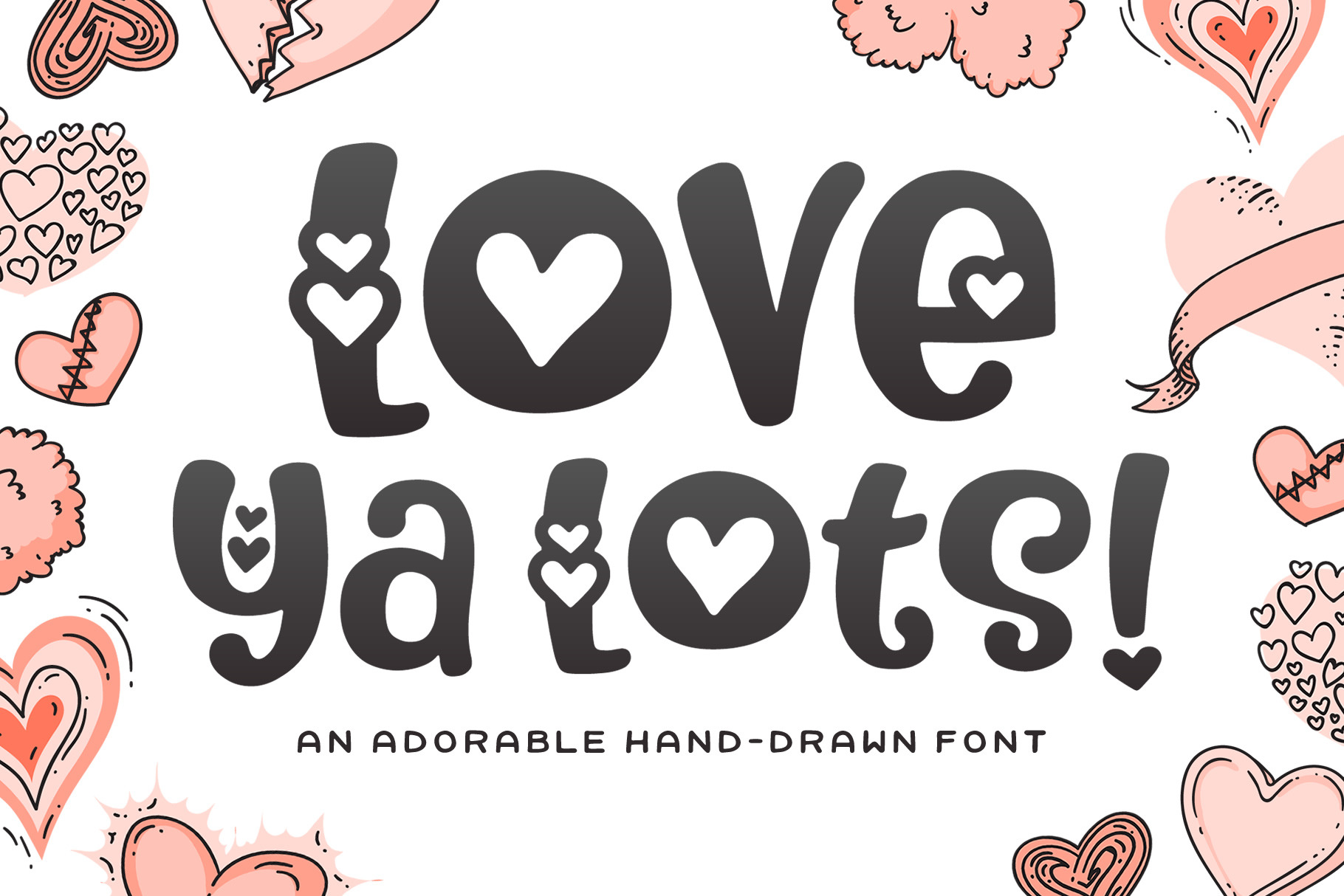
Love Ya Lots Font
Introducing: Love Ya Lots! An incredibly adorable font that comes with 3 variations: one with no hearts (Love Ya), one with a few hearts added to certain characters (Love Ya Little) and one with a bunch of hearts for those extra sweet projects (Love Ya Lots).